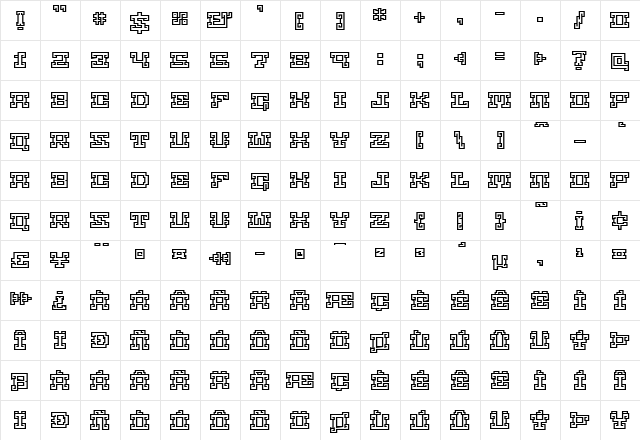
MAJA Regular
| Foundry | Miguel Hernandez. Cirilicna slova dodao Nikola Kovanovic. 2005 |
| Designer | Cirilicna slova dodao Nikola Kovanovic. 2005 |
Design Context for MAJA Typeface
MAJA is a composed and adaptable typeface that performs quietly and consistently across a wide range of design contexts.